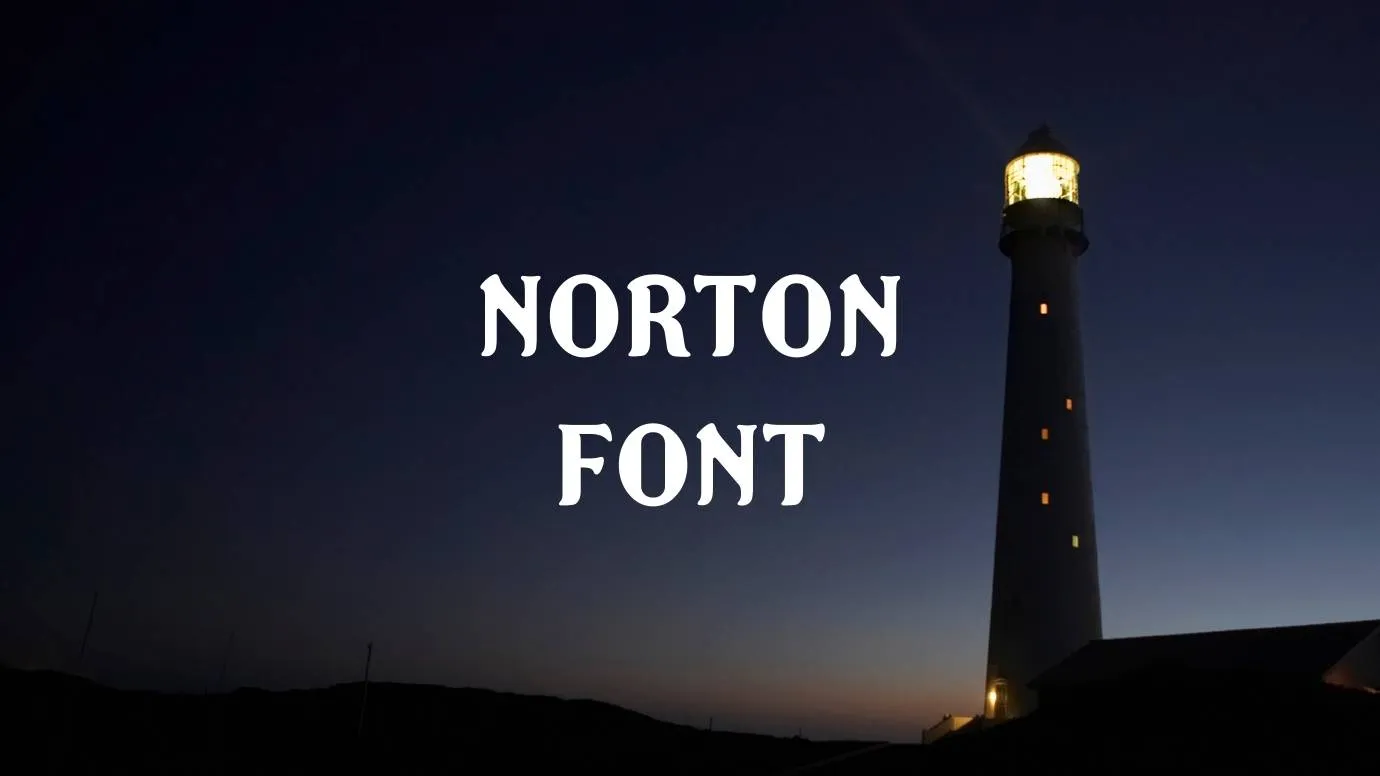
Norton is part of the logo typeface family, inspired by the iconic Norton Motorcycles logo’s 5 letters. Created by Keith Bates, Norton was launched in 2006 by the renowned type foundry, K-Type. I
This font family has 257 rare glyphs with 1000 units per em and provides 270 fancy characters including uppercase letters, lowercase letters, basic numbers, general punctuations, Spacing Modifier Letters, Geometric Shapes, Currency Symbols, Mathematical Operators, and Latin Extended-A, Latin Extended-B.
| Name | Norton Font |
| Designer | Keith Bates |
| Foundry | K-Type |
| Style | Logo |